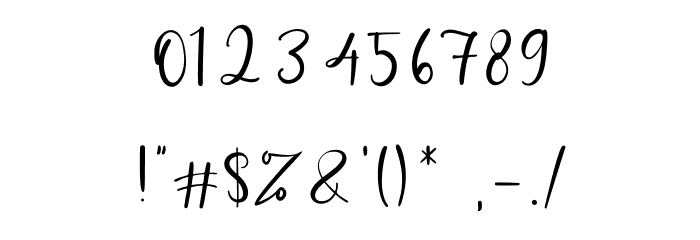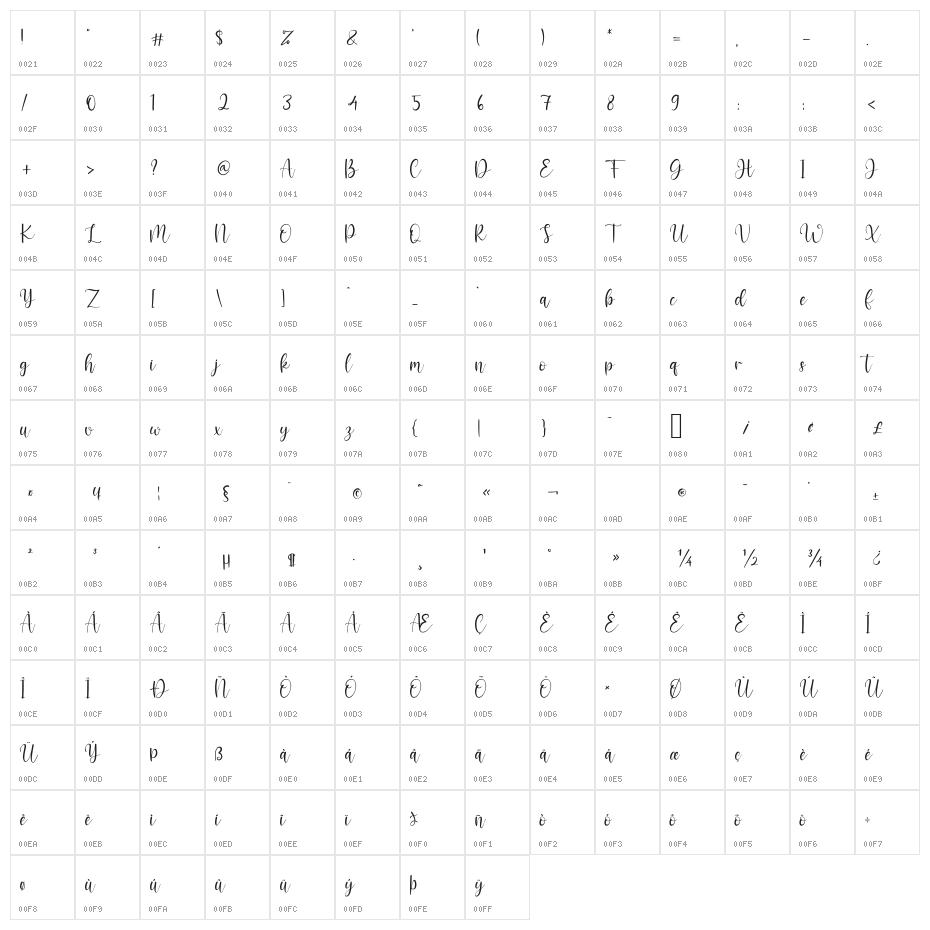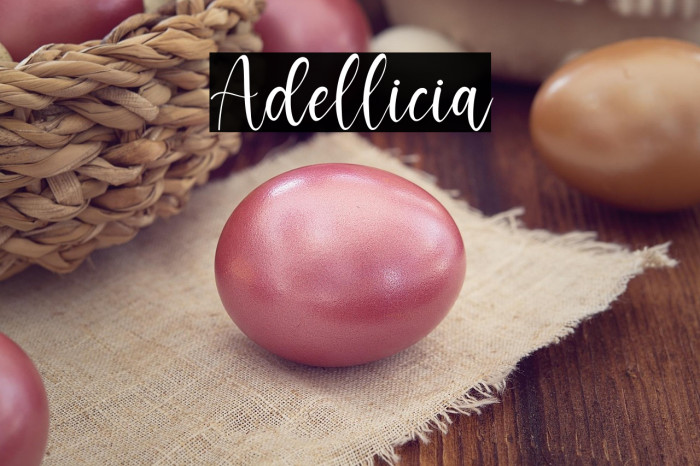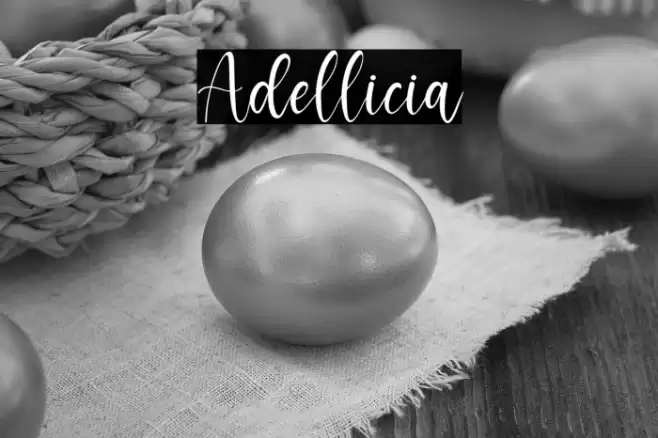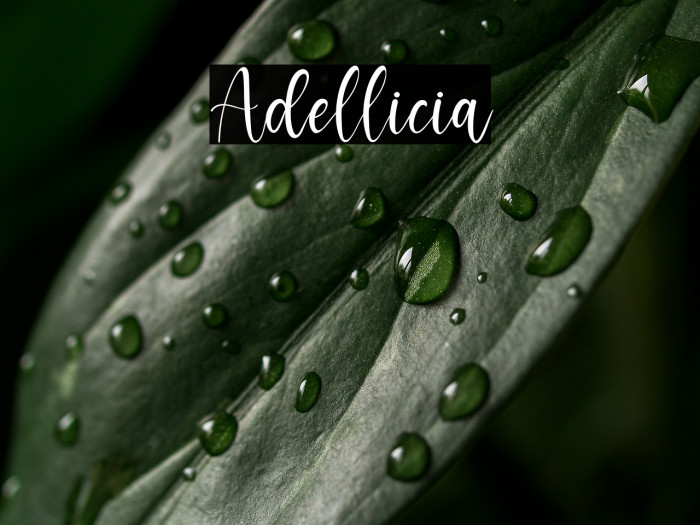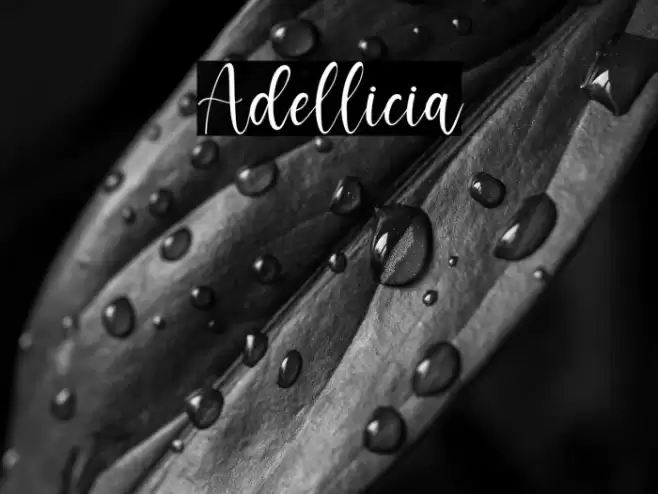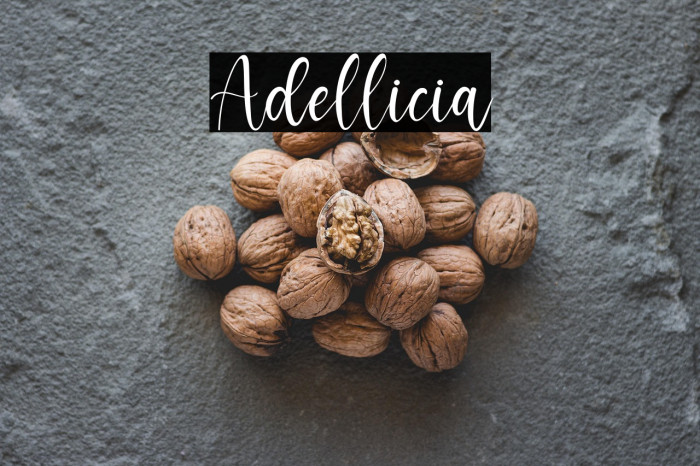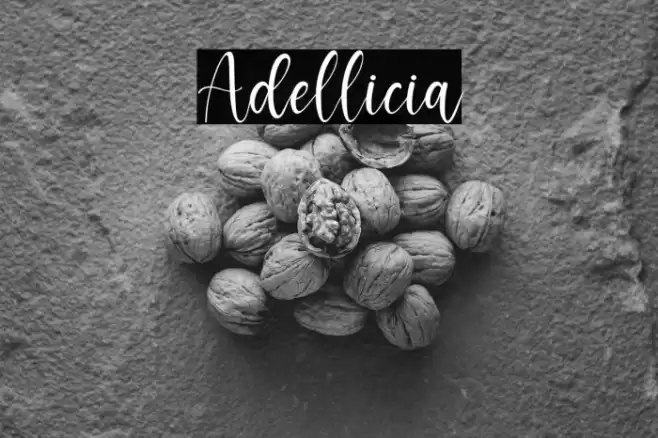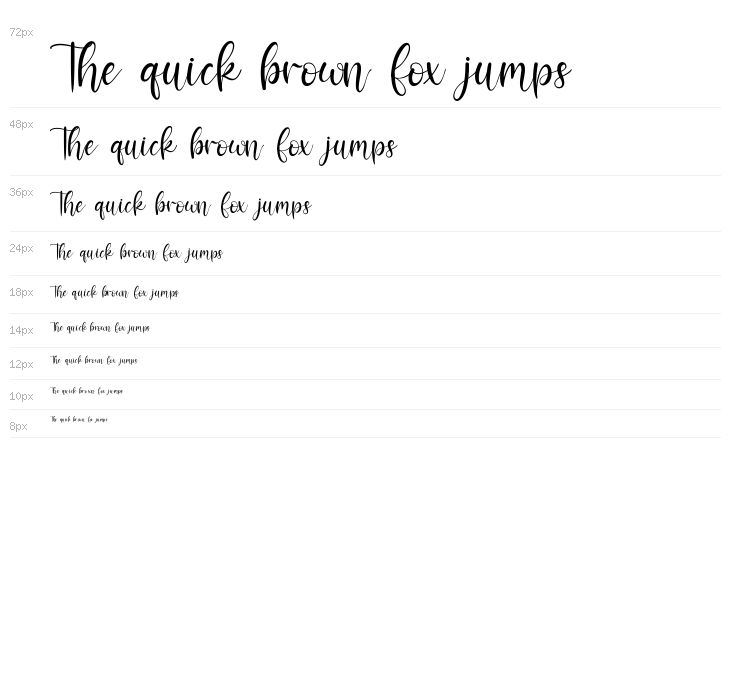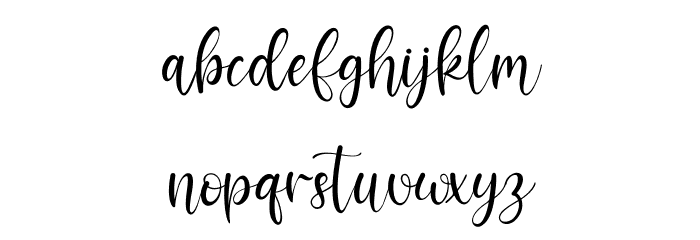
Adellicia Font
Adellicia Description
This elegant script font features a flowing, cursive style with a modern twist. The characters are gracefully connected, giving a sense of fluidity and movement. The uppercase letters are bold and slightly larger, providing a striking contrast to the more delicate lowercase letters. The font maintains a consistent stroke width, contributing to its clean and polished appearance. The numerals and special characters are designed to complement the overall aesthetic, ensuring versatility across different uses. This font is perfect for projects that require a touch of sophistication and elegance.